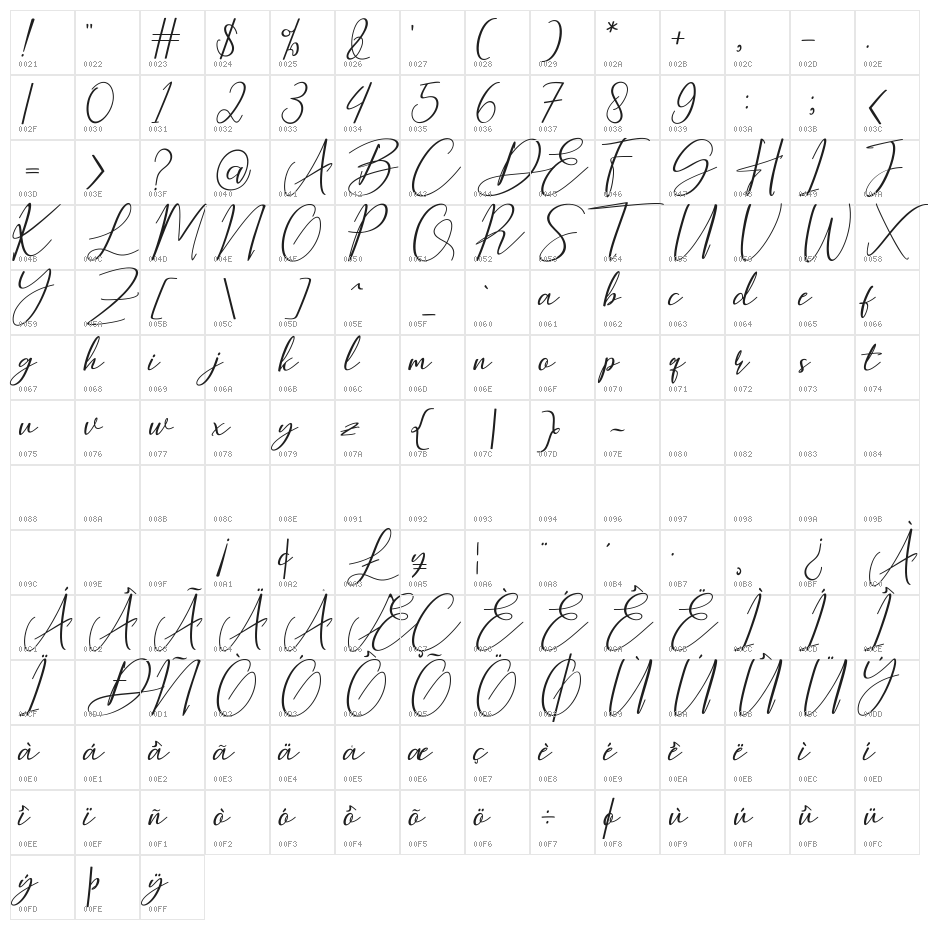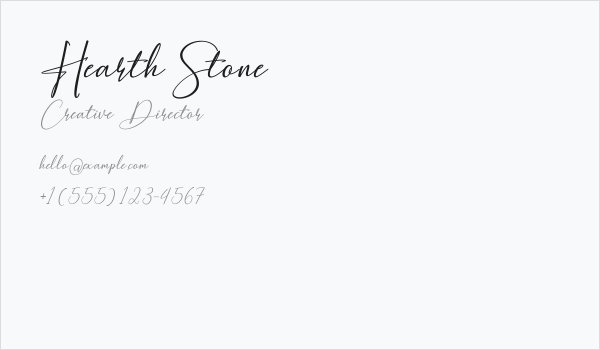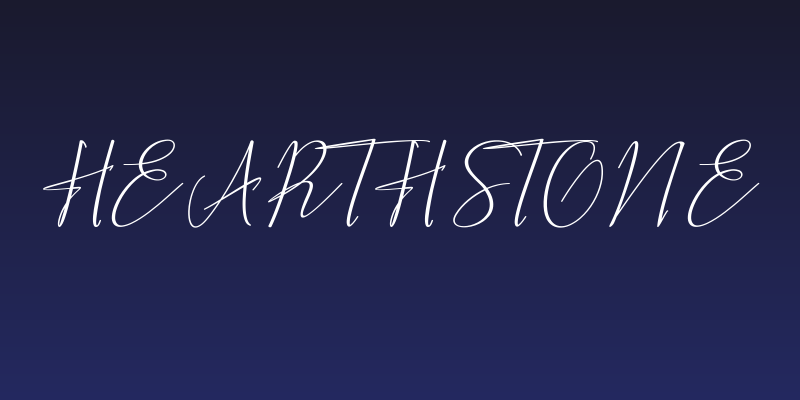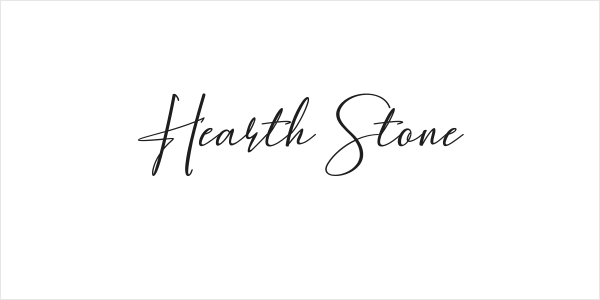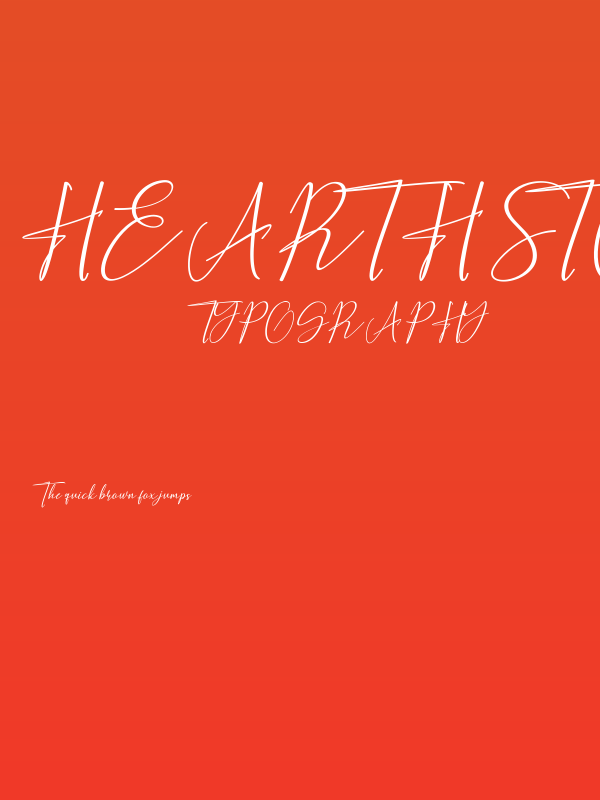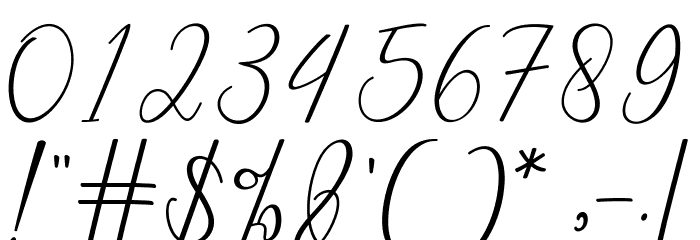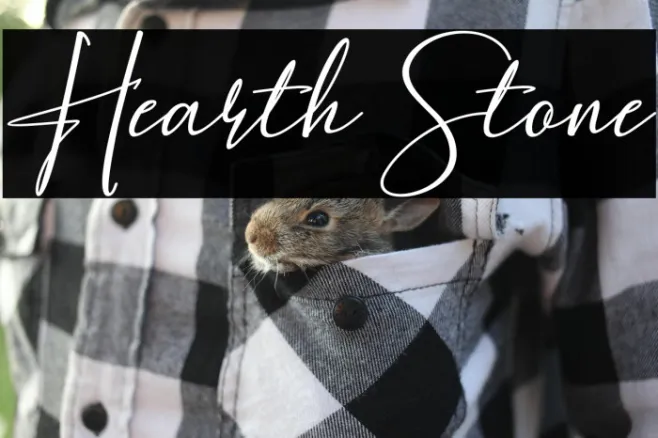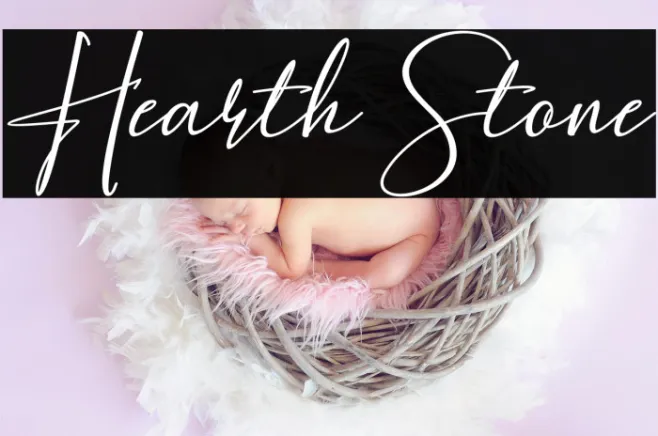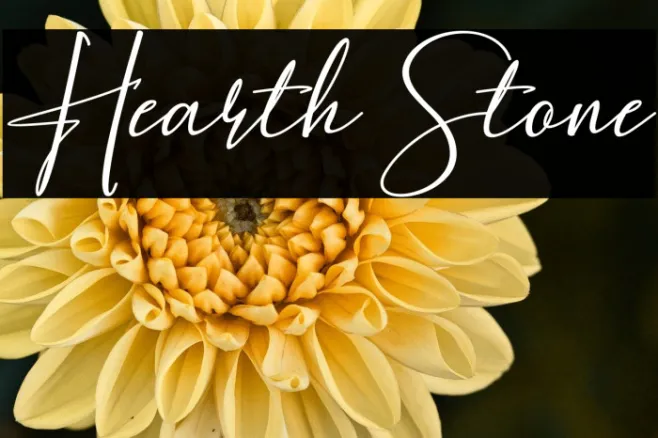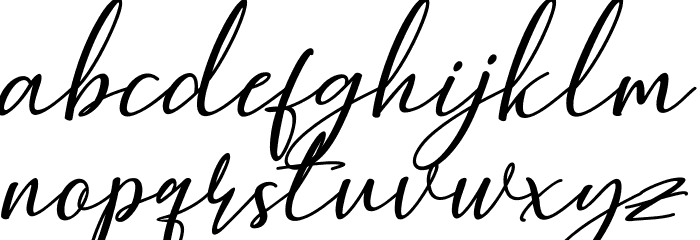
Hearth Stone Font
Hearth Stone Description
This font features a dynamic and elegant script style, characterized by fluid, sweeping strokes that convey a sense of movement and grace. The uppercase letters are tall and slender, with a slight slant that adds to the overall flowing aesthetic. The lowercase letters are more compact, maintaining the same fluidity with a slightly bolder appearance. The numerals are consistent with the script style, featuring curved lines and a uniform height. Special characters are seamlessly integrated, maintaining the overall aesthetic. This font is perfect for projects that require a touch of elegance and sophistication, such as wedding invitations, branding, and high-end product packaging.